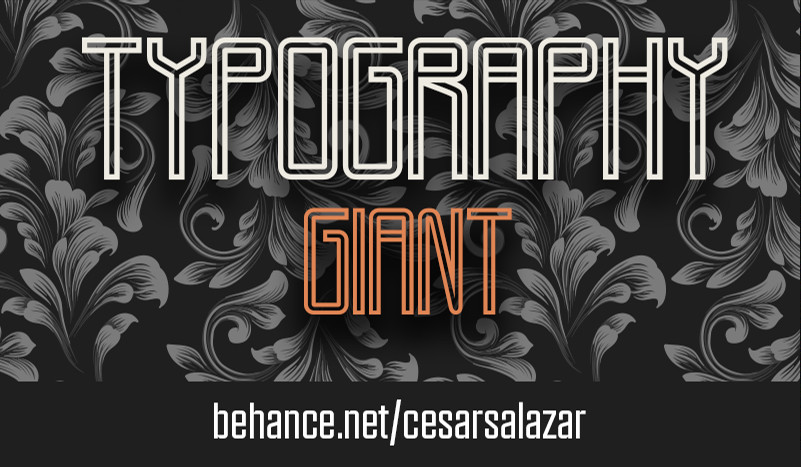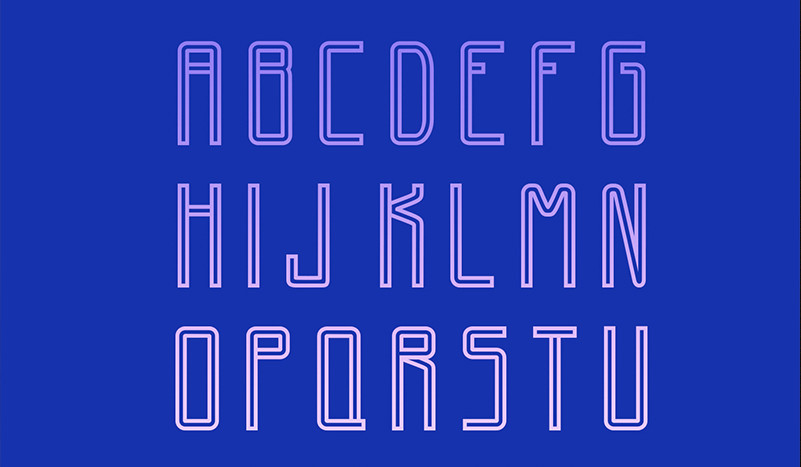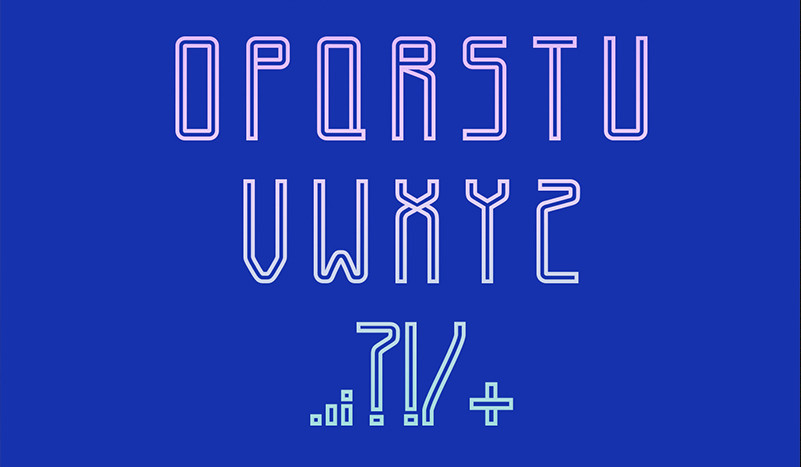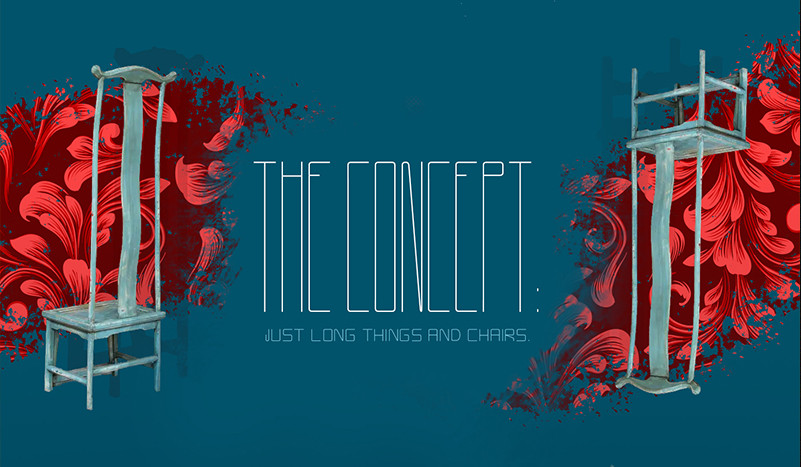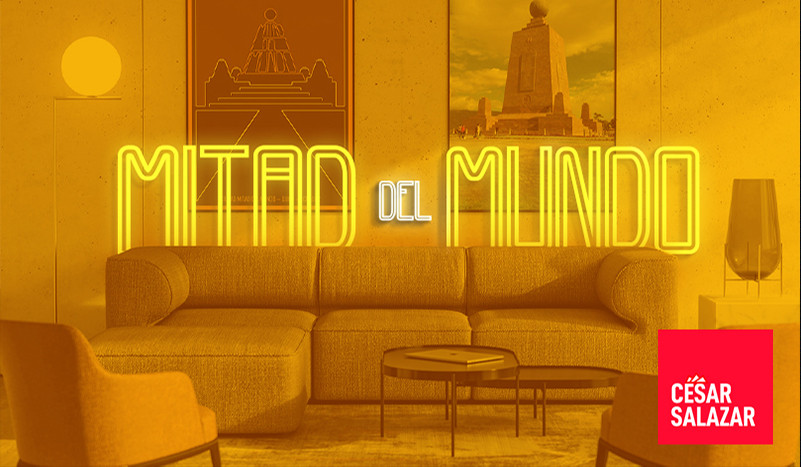
Giant Typeface
Giant Typeface – I hope to see this font on the streets. Excellent for headlines, also readable for sentences. follow me: be.net/cesarsalazar